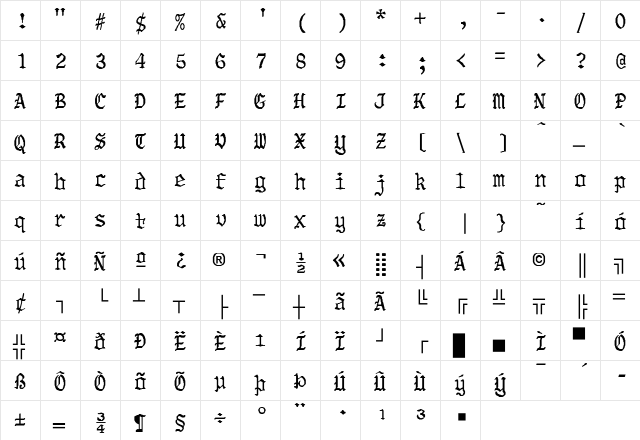
Bar Harbour Bold
Design Context for Bar Harbour Typeface
Bar Harbour is a composed and adaptable typeface that performs quietly and consistently across a wide range of design contexts. Its bold stroke weight gives it real presence on the page.